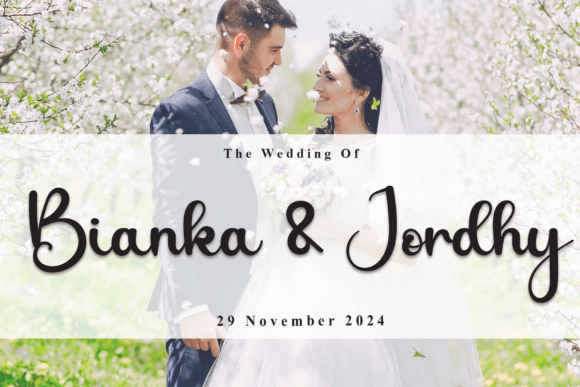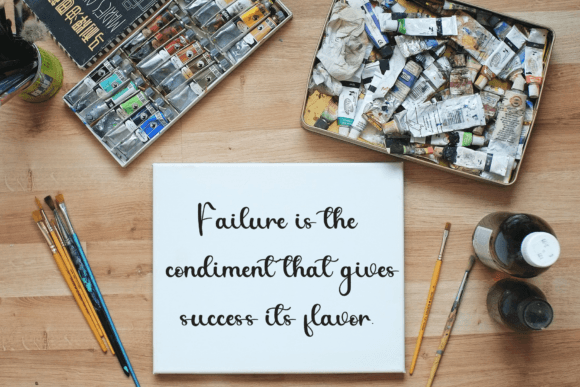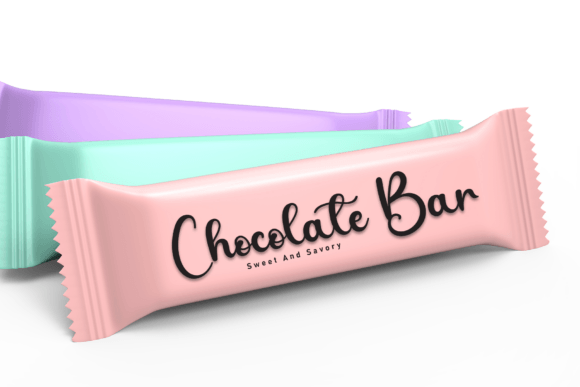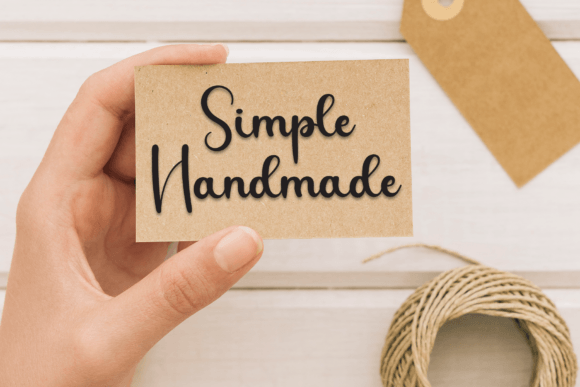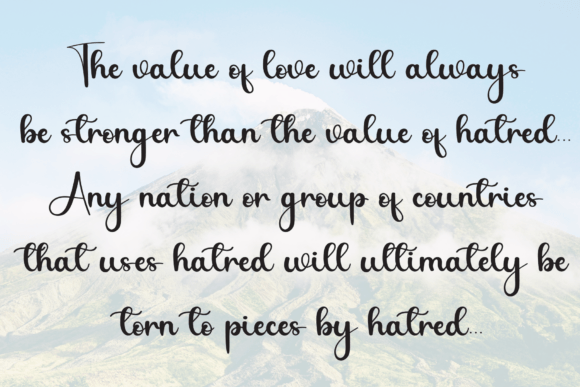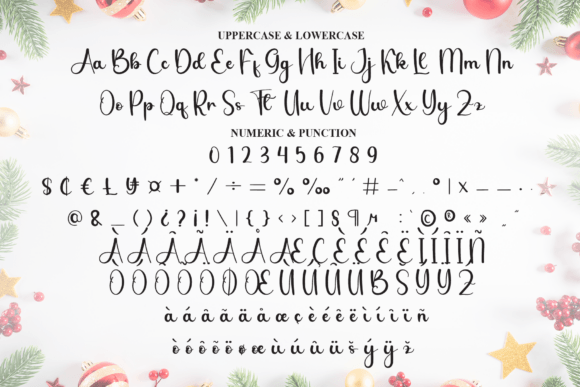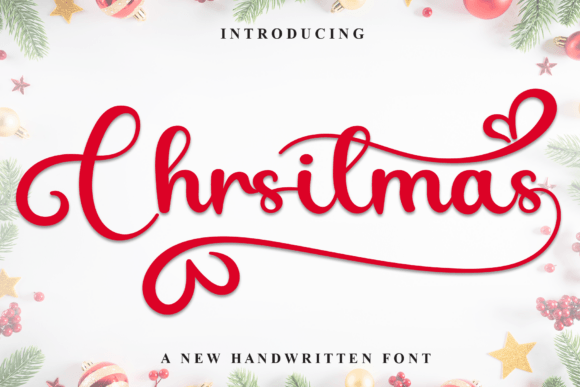
Christmas Font: A Charming Handwritten Display Font for Your Holiday Designs
Welcome to the charming world of Christmas Font, a handwritten display font that exudes sweetness and friendliness. With its distinctly adorable and playful demeanor, this font is an ideal choice to infuse an element of fun into your design endeavors. Whether you’re a designer, crafter, or DIY enthusiast, Christmas Font is perfect for adding a touch of personality to your holiday creations.
What Makes Christmas Font So Special?
Christmas Font is a unique and versatile font that can be used for a wide range of design projects. Its handwritten style gives it a personal and approachable feel, making it perfect for creating holiday cards, invitations, and decorations that reflect joy and festivity. The font’s playful demeanor also makes it an excellent choice for designs that require a touch of whimsy and fun.
Perfect for Wedding Invitations and Holiday Cards
Are you looking for a font that can add a hint of personal touch to your wedding invitations or holiday cards? Christmas Font is an excellent choice. Its elegant yet playful style makes it perfect for creating beautiful and memorable invitations that reflect your personality and style. You can use it to create custom wedding invitations, birthday cards, or holiday greetings that will leave a lasting impression on your loved ones.
Easy to Use and Customize
Add a Dash of Cheer to Your Designs
Christmas Font is perfect for adding a dash of cheer to your holiday designs. Whether you’re creating decorations, gift tags, or holiday cards, this font can help you create beautiful and festive designs that reflect the spirit of the season. You can use it to create custom holiday decorations, such as garlands, banners, and signs, or add it to your holiday cards and invitations for a personal touch.
Make Your Creations Stand Out
With Christmas Font, you can create designs that stand out from the crowd. The font’s unique and playful style makes it perfect for creating eye-catching designs that reflect your personality and style. Whether you’re a designer, crafter, or DIY enthusiast, this font can help you create beautiful and memorable designs that will leave a lasting impression on your audience.
Tips for Using Christmas Font
Here are some tips for using Christmas Font in your designs:
- Use it for holiday cards and invitations to add a personal touch.
- Pair it with other fonts to create a unique and eye-catching design.
- Use it to create custom holiday decorations, such as garlands and banners.
Christmas Font is a charming handwritten display font that is perfect for adding a touch of fun and personality to your holiday designs. With its playful demeanor and elegant style, this font is ideal for creating beautiful and memorable designs that reflect the spirit of the season. Whether you’re a designer, crafter, or DIY enthusiast, Christmas Font is a must-have font for your holiday design projects.